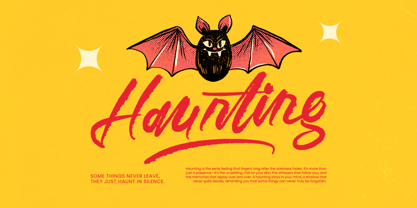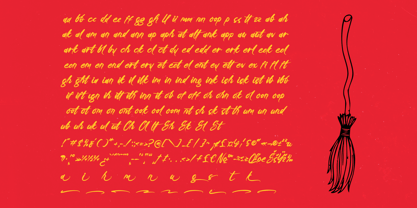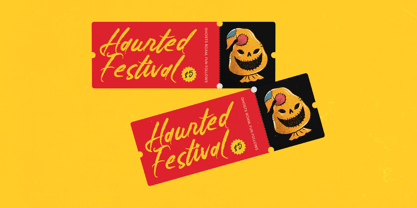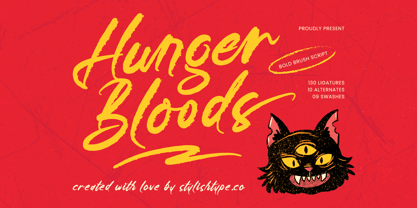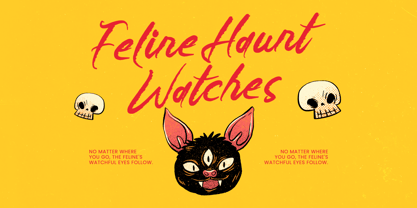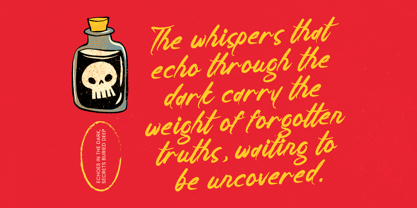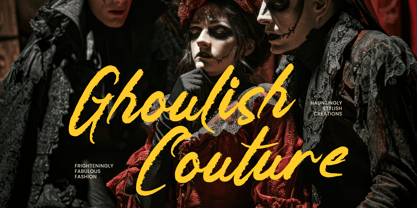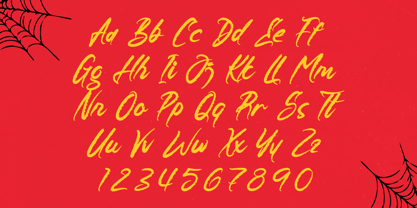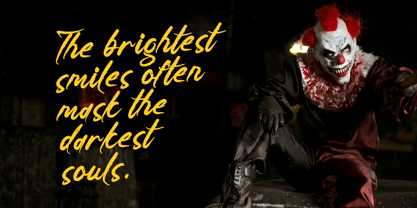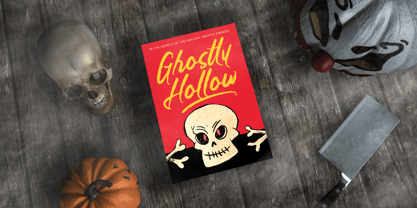
Hunger Bloods
The Hunger Bloods Font Family was designed by Heru Utama Putra and published by Stylishtype Studio. Hunger Bloods contains 2 styles and family package options. More about this family
Hunger Bloods is a bold brush script built for attitude, edge, and raw visual energy. With thick hand-painted strokes, gritty texture, and expressive movement, this font is perfect for horror posters, streetwear branding, album covers, extreme sports graphics, tattoo-inspired designs, and anything that needs a loud, aggressive, and rebellious handwritten style. Featuring 130 ligatures, 10 alternates, and 9 swashes, it gives you enough variation to craft chaotic, dynamic, and impactful typography.